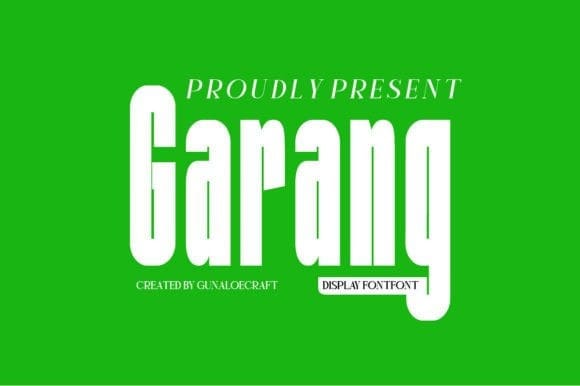
Garang Font
Garang Font is a vibrant display typeface reminiscent of sans style with bold, rounded letterforms and playful curves, it evokes a sense of nostalgia while adding a modern twist. Ideal for eye-catching headlines, posters, and branding, Garang radiates energy and charm with every glyph.